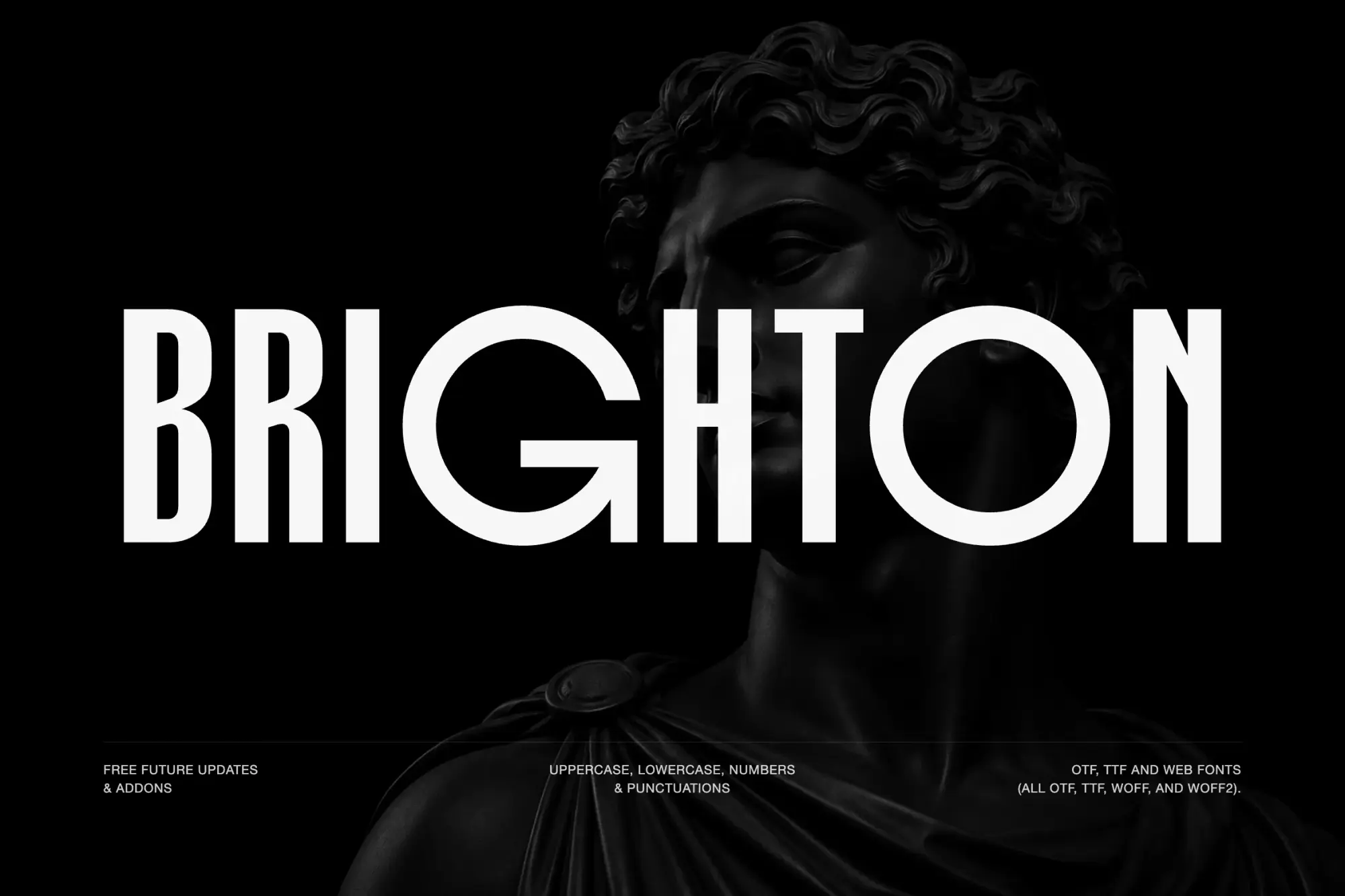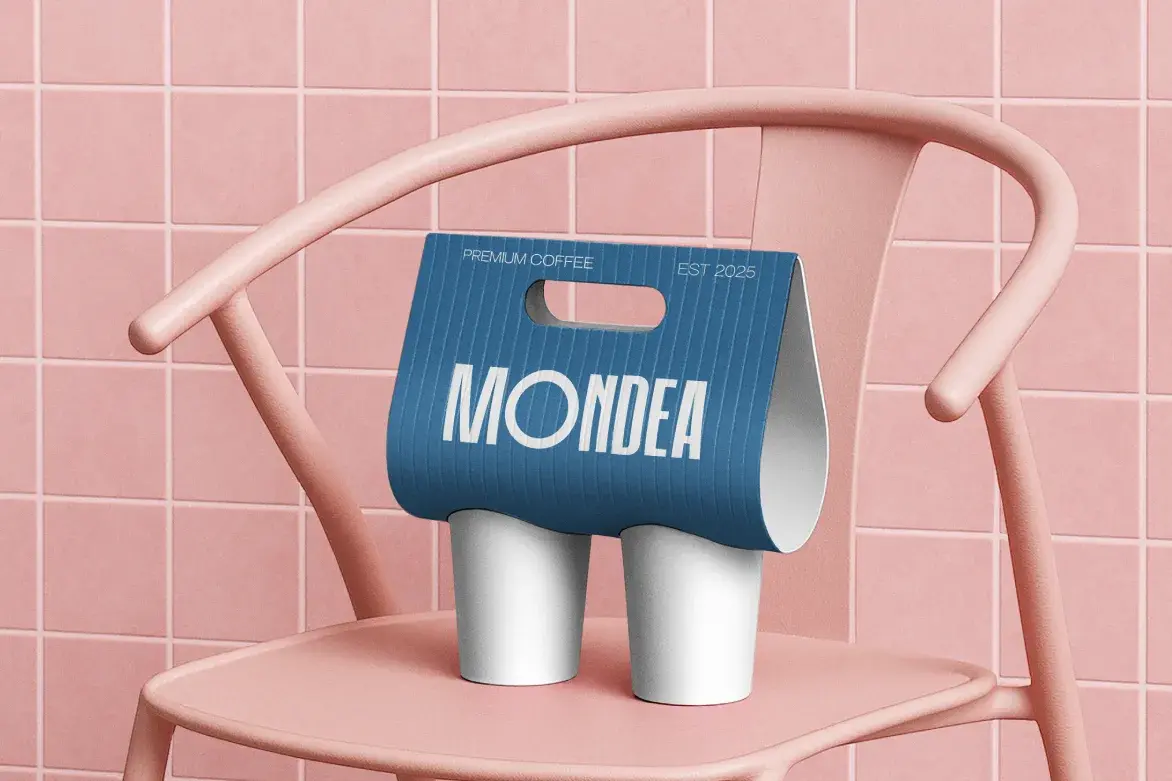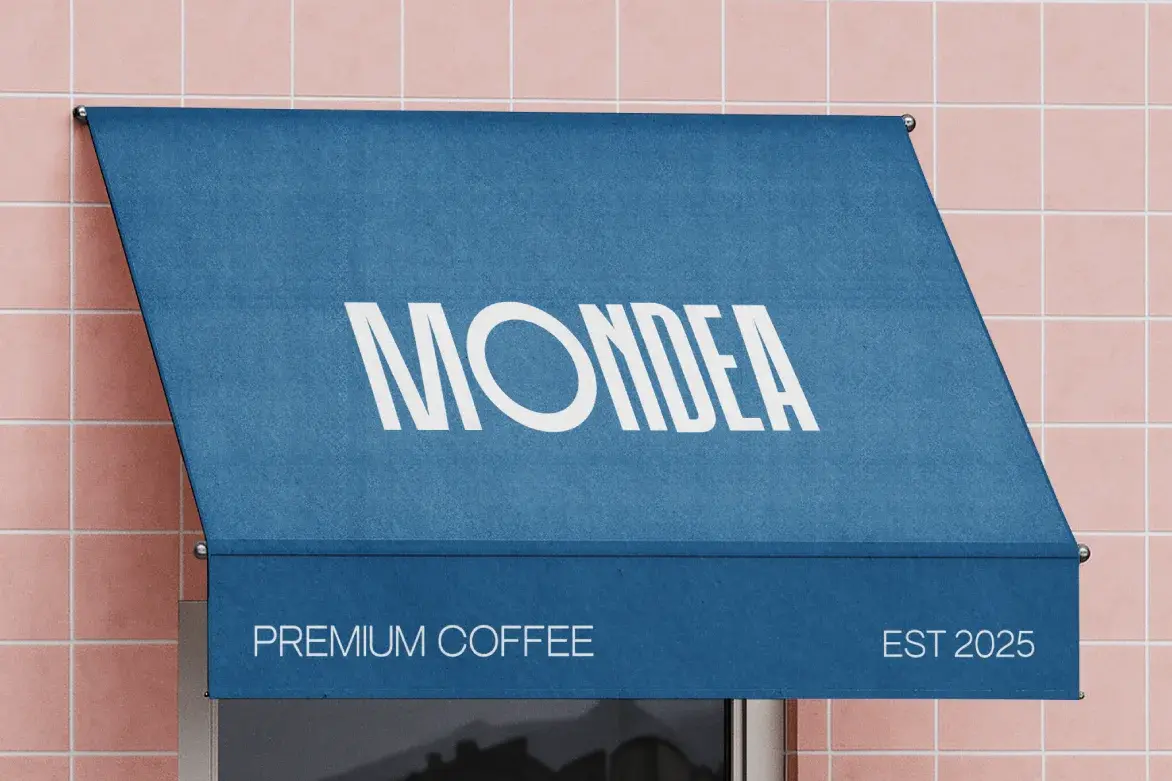
Brighton
Overview
Brighton is a bold sans-serif display font designed for modern branding and impactful visuals. Its distinctive style makes it ideal for logos, social media graphics, and magazine layouts, ensuring your designs stand out with clarity and confidence.
Design Traits
- Geometric shapes create a contemporary feel.
- Generous spacing enhances readability at various sizes.
- Bold weight adds emphasis and draws attention.
- Clean lines ensure a polished and professional appearance.
Key Features
- Multiple weights and italics for versatility.
- Extensive character support for global use.
- Optimized for both print and screen performance.
Best Use Cases
- Logo design for brands looking to make a statement.
- Eye-catching social media posts that engage audiences.
- Magazine headlines that demand attention.
- Custom typography for unique graphic design projects.
Why Designers Choose Brighton
- Versatile for various design applications.
- Bold presence enhances brand identity.
- Easy to read across different media.
- Modern aesthetic appeals to contemporary audiences.
- High-quality design supports premium projects.